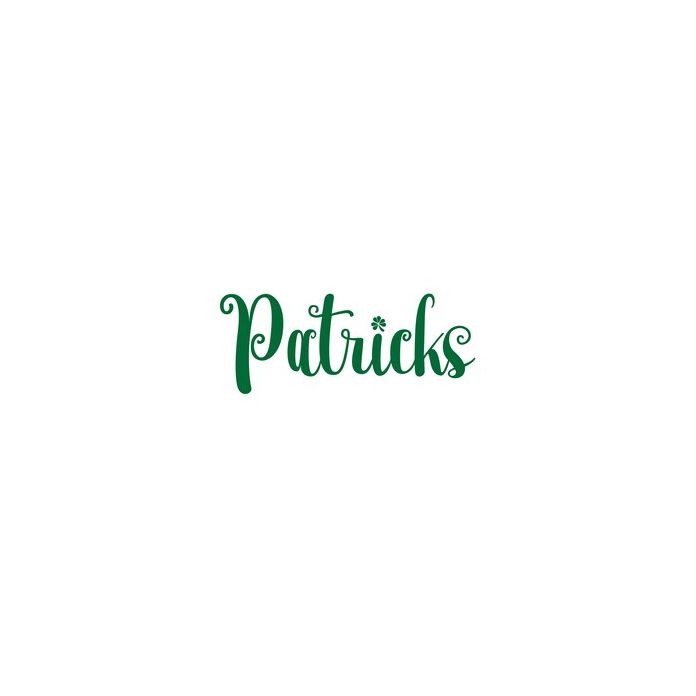
Hi everyone, introducing the beautiful patricks font designed for a beautiful moment, of course, this is very unique and different from the usual script, because this is the original font from my wife's handwriting. Now go ahead and use it for New Year's celebration projects, products, crafts, invitations and personalization. Includes alphabet, numbers, and punctuation.